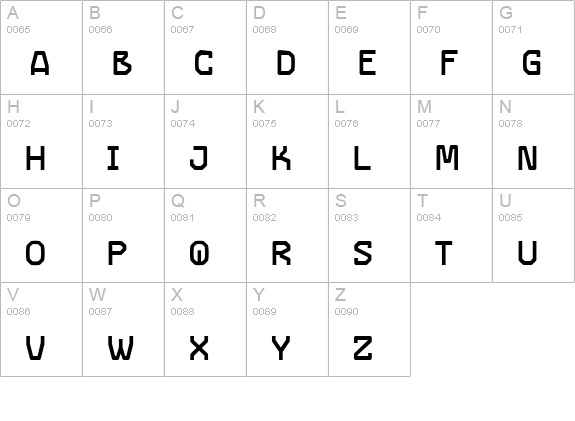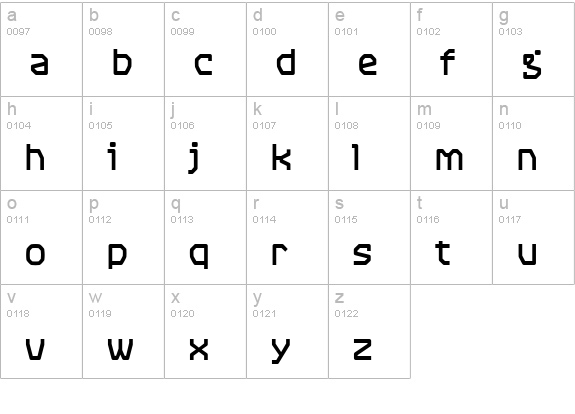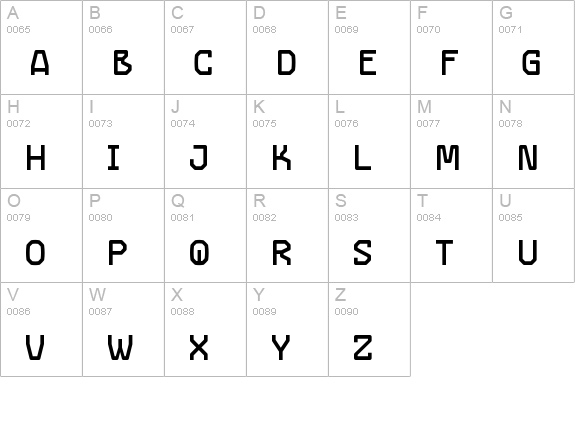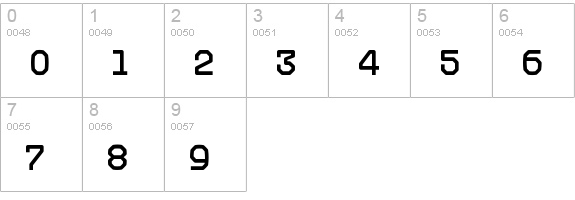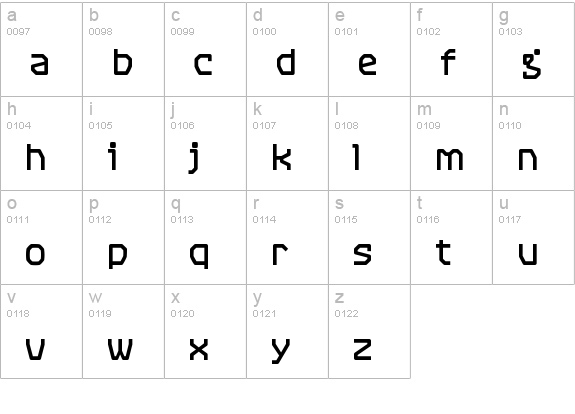
RangeBold font is a modern and versatile typeface that combines boldness with elegance. With its strong and impactful design, RangeBold is perfect for creating eye-catching headlines, titles, and branding materials. This font exudes confidence and style, making it ideal for projects that require a bold and striking look. What sets RangeBold apart is not only its exceptional design, but also the fact that it is available for free download at FontsMarket.com. This means that you can easily access this high-quality font without any cost, making it a valuable addition to your font collection. Whether you are a designer looking for a standout typeface or a business owner wanting to elevate your branding, RangeBold is the perfect choice. Download RangeBold today and make a bold statement with your designs.